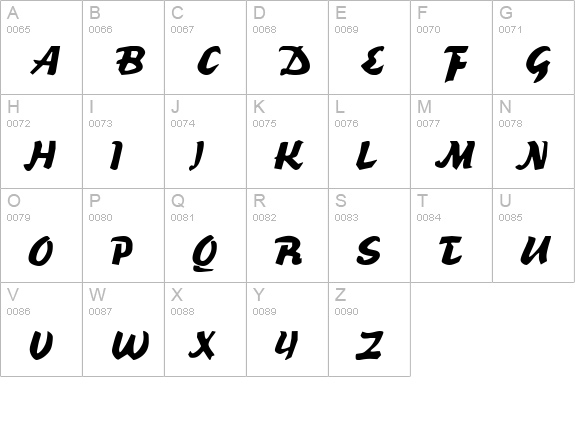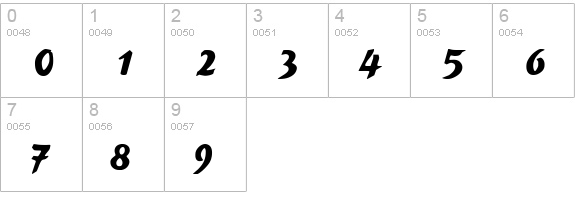
R691-Script-Bold Font Details
R691-Script-Bold is a strong, high-contrast variant in the R691 typeface family \xE2\x80\x94 well suited to headlines, attention-grabbing titles, and strong calls-to-action.
R691-Script-Bold is a stunningly elegant and versatile font that exudes a sense of sophistication and style. With its bold strokes and graceful curves, this font is perfect for creating eye-catching designs that demand attention. Whether you're working on branding, invitations, signage, or any other project that requires a touch of elegance, R691-Script-Bold is sure to make a statement. What makes R691-Script-Bold even more appealing is that it is available for free download at FontsMarket.com. This means you can easily add this beautiful font to your collection without any cost, making it a valuable resource for designers and creatives looking to elevate their work. Don't miss out on the opportunity to enhance your projects with the timeless beauty of R691-Script-Bold - download it today and see the difference it can make!